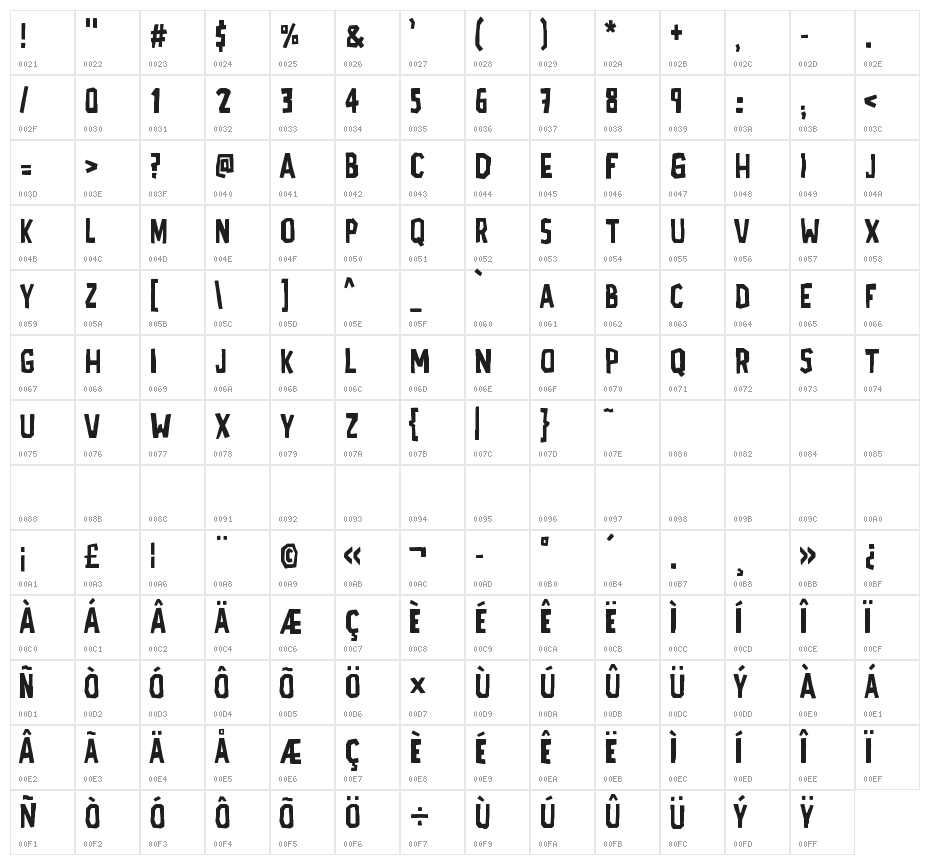
ADPolaquita Font
ADPolaquita Description
This font features a bold and rugged style with a hand-drawn appearance, giving it a distinctive and artistic look. The characters are slightly irregular, adding to its charm and making it ideal for creative projects. The uppercase letters are prominent and commanding, while the lowercase letters maintain the same boldness with a slightly more compact form. The numbers and special characters are consistent with the overall style, ensuring a cohesive look across all text. This font's unique aesthetic makes it suitable for projects that require a strong visual impact.
| Proposed Projects | Ideal for posters, album covers, branding, and any project needing a bold, artistic touch. |